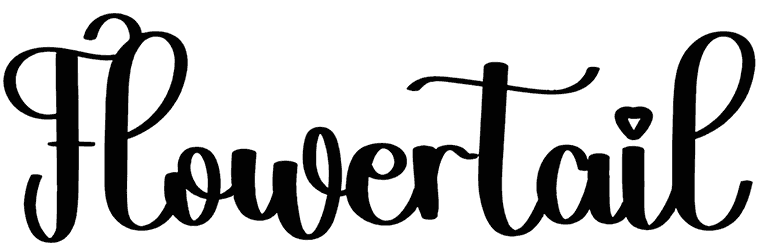
Flowertail Font
The elegant and refined touches of the Flowertail, script font, may elevate any project to the next level. This romantic font is perfect for use in invitations, social media visuals, and posters.